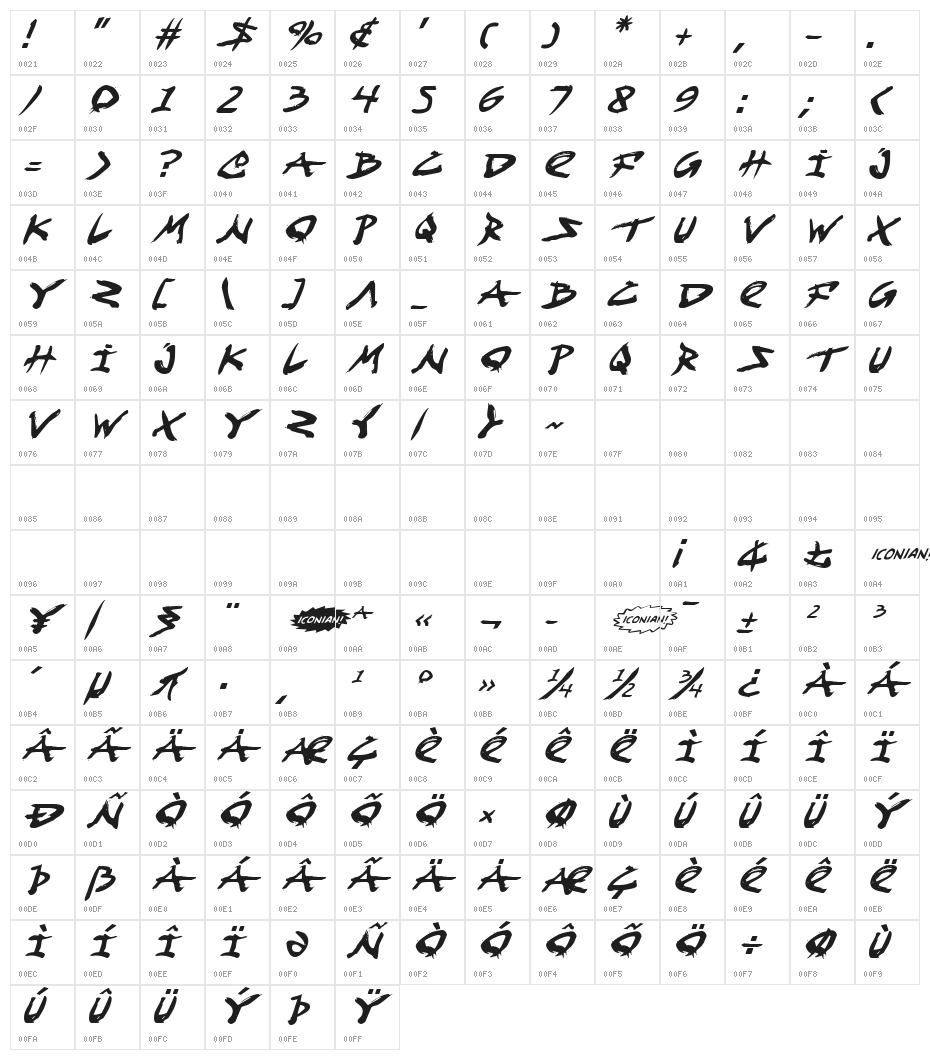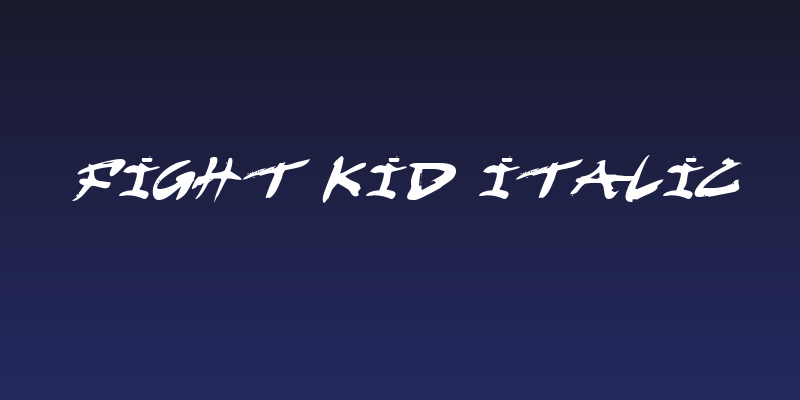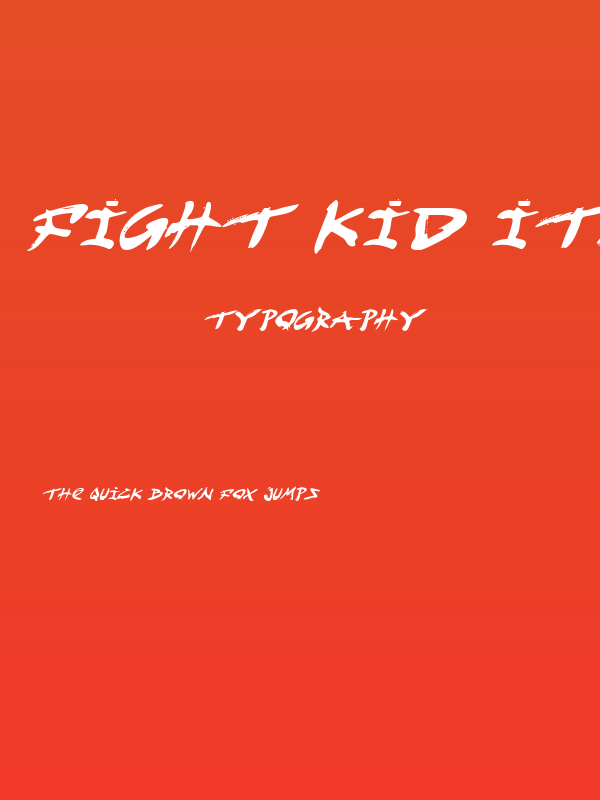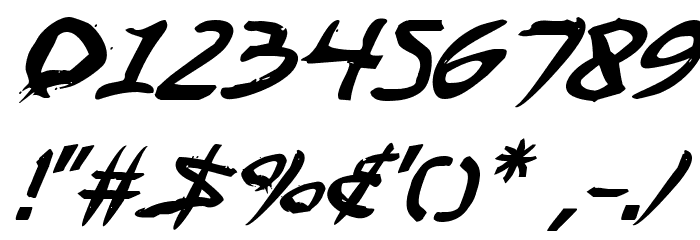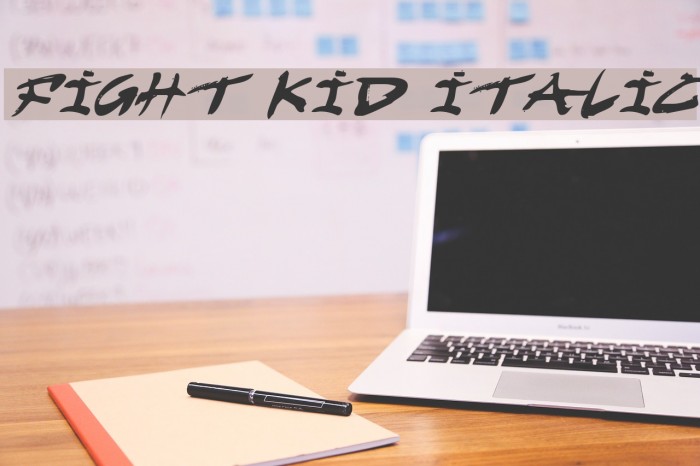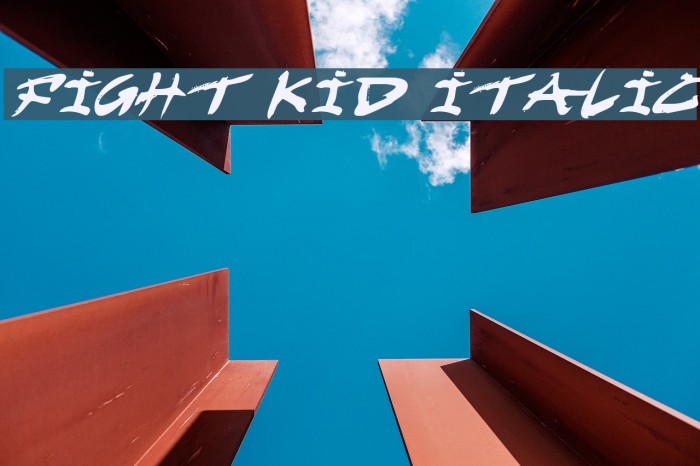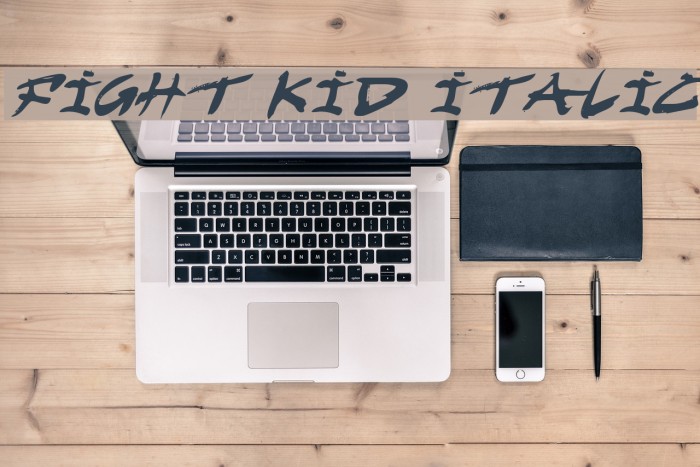
Fight Kid Italic Font
Fight Kid Italic Description
This font exhibits a bold, dynamic style with a brush-like appearance, giving it a sense of movement and energy. The strokes are thick and uneven, creating a raw and expressive look. The characters are slightly slanted, enhancing the italicized effect. The uppercase and lowercase letters maintain a consistent style, with sharp angles and pointed edges. Numbers and special characters are equally bold and expressive, fitting seamlessly with the overall aesthetic. This font is ideal for projects that require a strong, impactful visual presence.
| Overall Style | Modern, Urban |
| Proposed Projects | Ideal for streetwear branding, music album covers, graffiti art, and dynamic poster designs. |